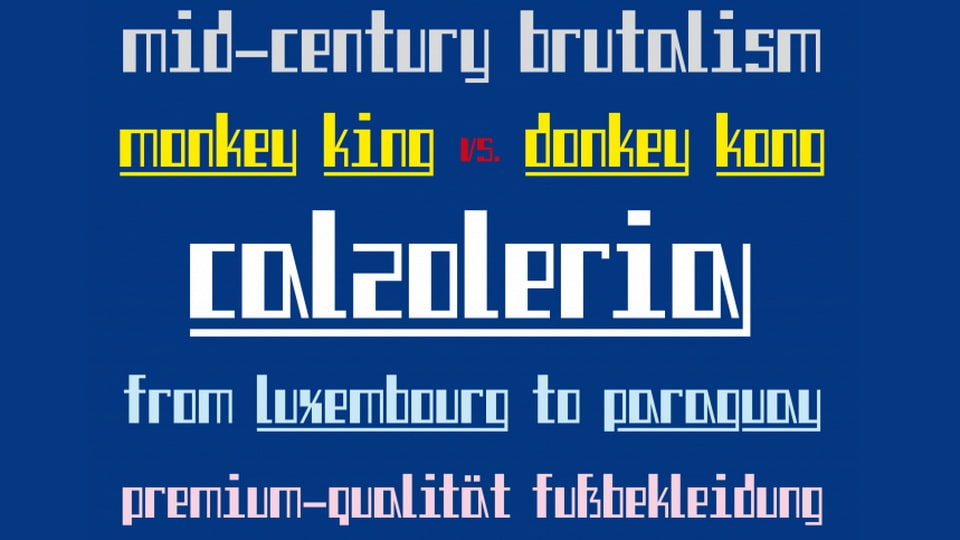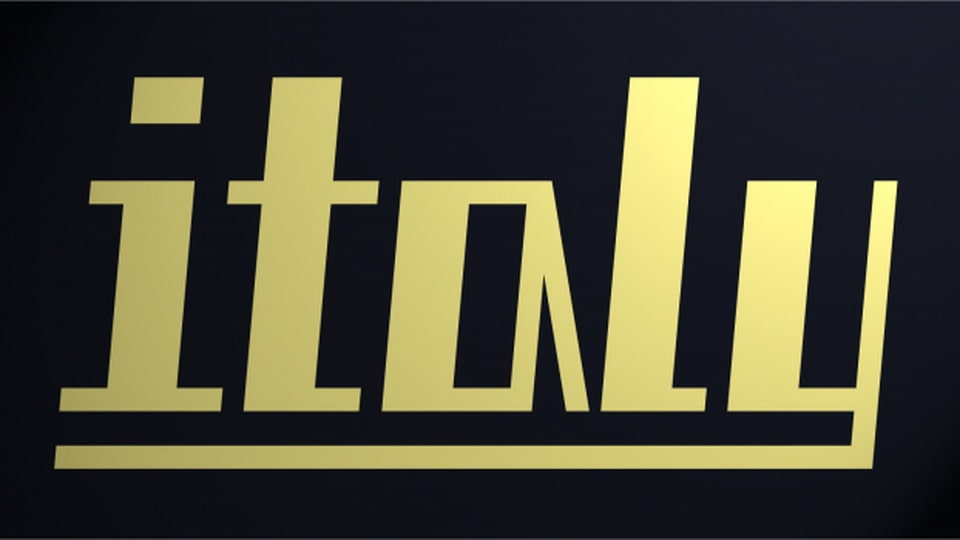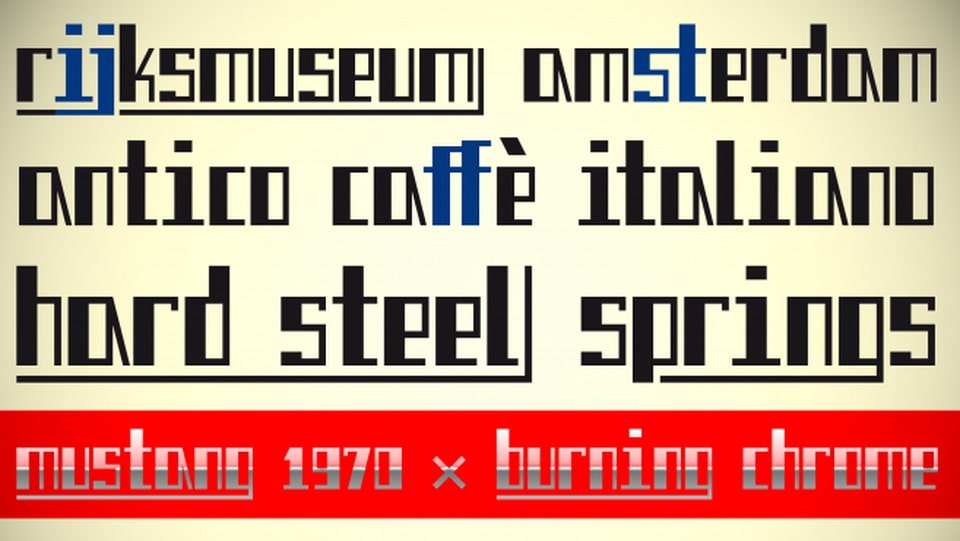
Calzoleria is a vintage display font inspired by the shop signage. The name means “shoe shop” (also shoe repair or shoe making) in Italian. With its high-contrast, rectangular shapes, the font evokes a sense of timeless elegance and sophistication, reminiscent of classic signage and posters from the mid-20th century.
Each character is crafted to embody the geometric precision and sharp edges characteristic of vintage typography. The high-contrast between thick and thin strokes adds a dynamic visual impact, making Calzoleria font the perfect choice for headlines, logos, and branding projects that demand attention and authority.